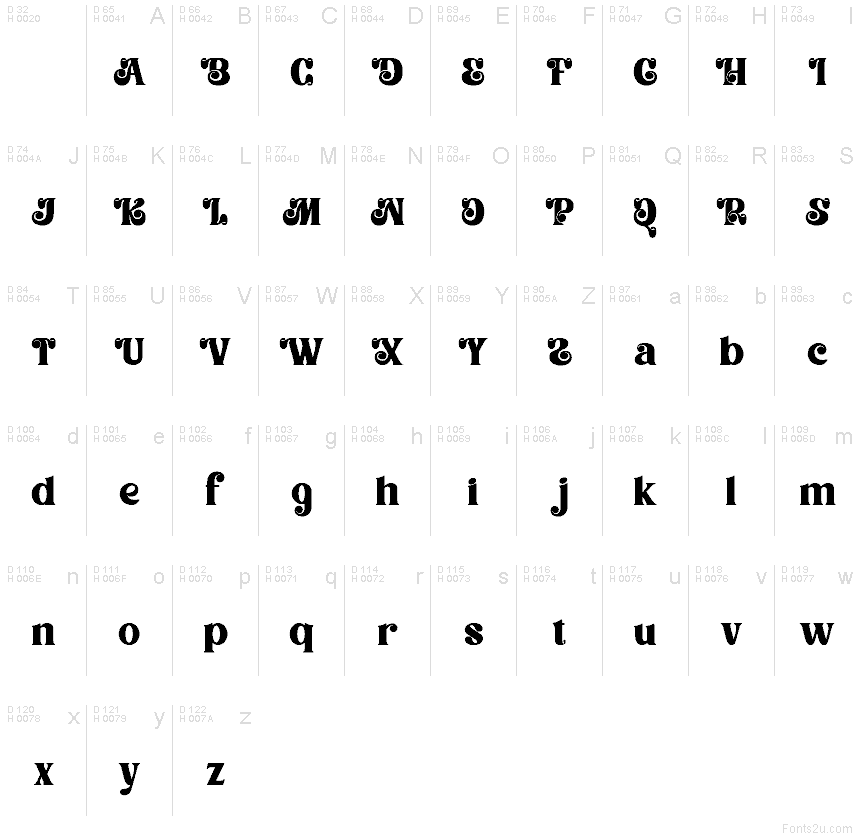
Lettero Mande DEMO Regular
Lettero Mande font from Dharmas Studio is a retro display font with a vintage mood. The bold type, heavy serif style, and decorative flourishes make this font suitable for the design of different outputs. The style which combines lowercase and uppercase letters in single sentences is consistent and uplifting.